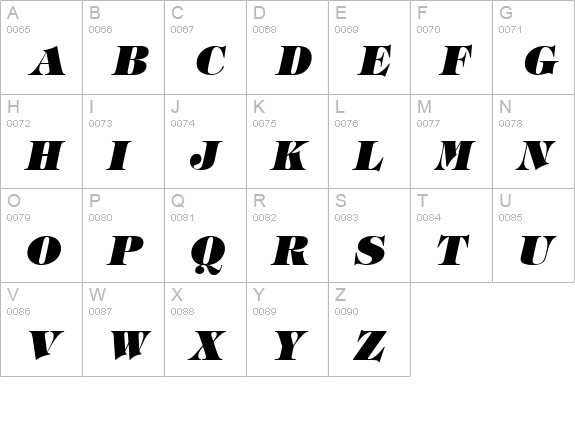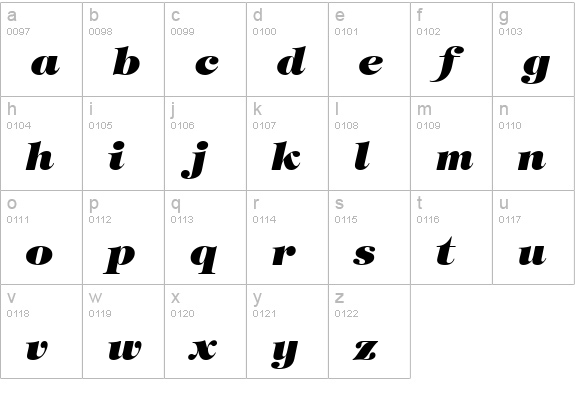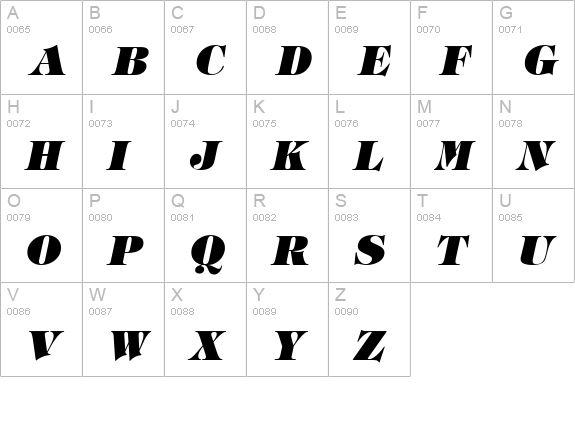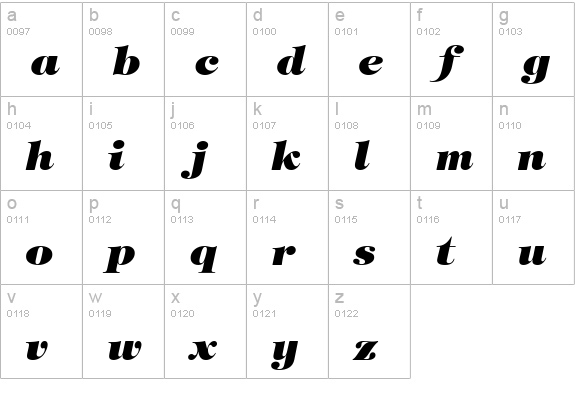
Sophisticate Black SSi Extra Bold Italic is a maximum-weight, dramatic, italic variant in the Sophisticate typeface family \xE2\x80\x94 well suited to maximum-impact headlines, posters, and packaging.
Introducing the striking and elegant Sophisticate Black SSi Extra Bold Italic font, designed to make a bold statement with its sleek and refined appearance. This font exudes an air of sophistication and confidence, perfect for adding a touch of luxury to any design project. Its extra bold weight commands attention, while the italicized slant adds a touch of modernity and flair. Each meticulously crafted character showcases the perfect balance between sharp, clean lines and graceful curves, resulting in a font that is both stylish and timeless. With its versatile nature, Sophisticate Black SSi Extra Bold Italic can be used for a wide range of design purposes. From high-end branding and logos to editorial layouts, invitations, and packaging designs, this font is certain to elevate any visual composition to new heights of elegance and professionalism. But what makes this font even more exceptional is that it is freely available to download at FontsMarket.com. Now, you can effortlessly access this beautiful typeface and unleash your creativity without any limitations. Whether you are a professional designer or an enthusiastic hobbyist, the freedom to utilize this font in your projects is just a click away. So, why wait? Embrace the allure of Sophisticate Black SSi Extra Bold Italic font and let it transform your designs into masterpieces. Download it now from FontsMarket.com and experience the seamless harmony of sophistication and boldness in every letter.